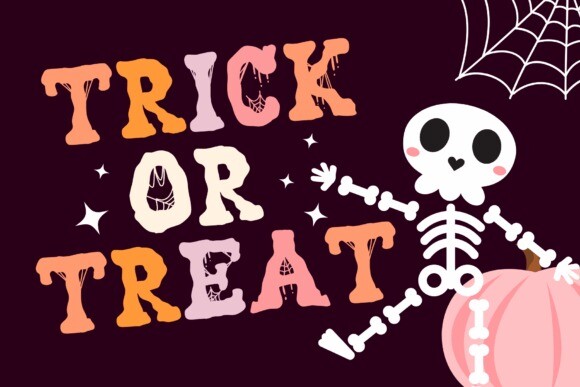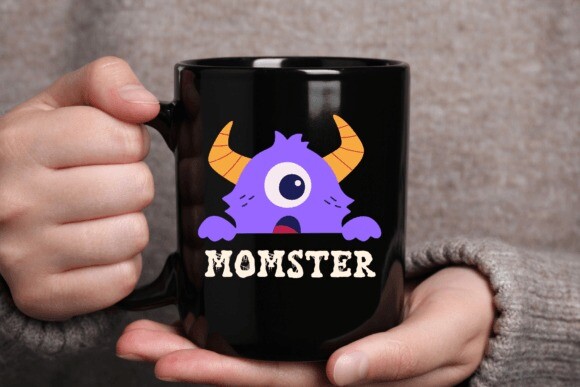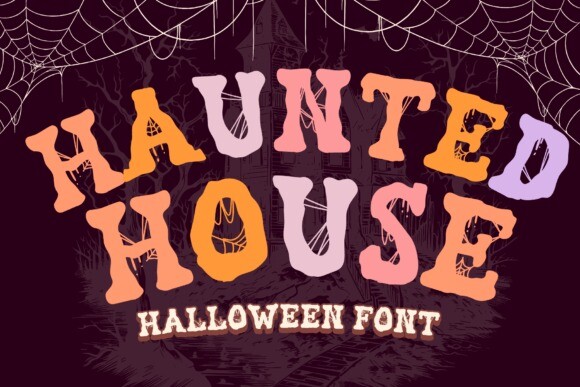
Haunted House Font
Designer: Brown Cupple Fonts
Haunted House Font is a Halloween decorative font. It embodies playfulness and authenticity and is the perfect choice for all your favorite projects such as blog posts, logos, branding, ads, invitations, greeting cards, planners, photo albums, decorations, and more. Add it to any of your designs, and enjoy the results!